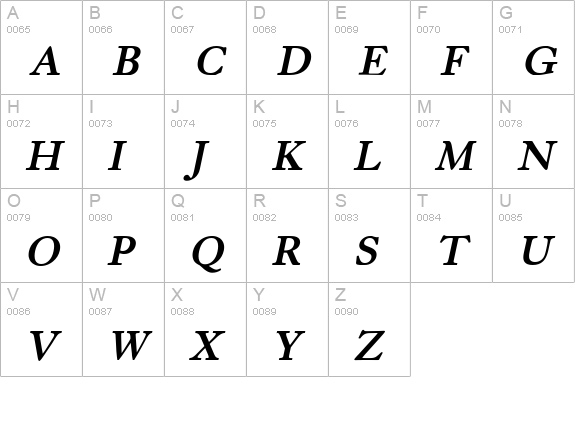
Bliss Bold Italic Font Details
Bliss Bold Italic is a strong, high-contrast, italic variant in the Bliss typeface family \xE2\x80\x94 well suited to headlines, attention-grabbing titles, and strong calls-to-action.
Bliss Bold Italic font exudes elegance and sophistication with its unique blend of boldness and italic flair. This striking typeface is perfect for adding a touch of modernity and style to any design project. The sleek lines and graceful curves of Bliss Bold Italic make it a versatile choice for a wide range of applications, from branding to editorial design. What sets Bliss Bold Italic apart is its seamless combination of strength and elegance, making it a standout choice for designers looking to make a bold statement. Whether used for headlines, logos, or body text, this font commands attention and leaves a lasting impression. The best part? Bliss Bold Italic is available for free download at FontsMarket.com. Now you can elevate your design projects with this stunning font without breaking the bank. Don't miss out on the opportunity to add Bliss Bold Italic to your font collection today!